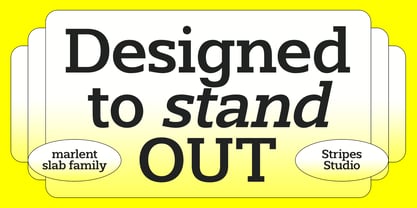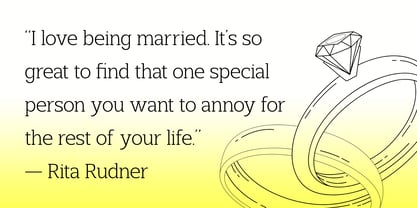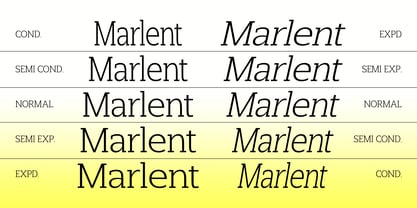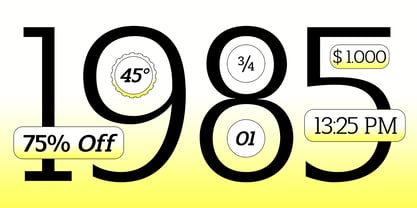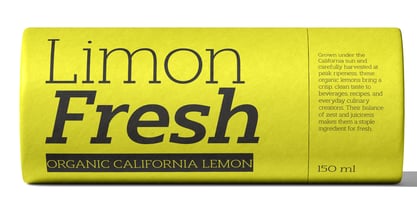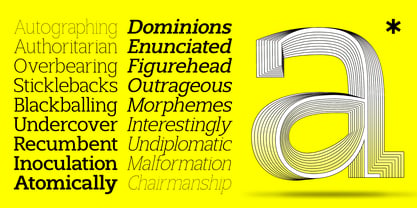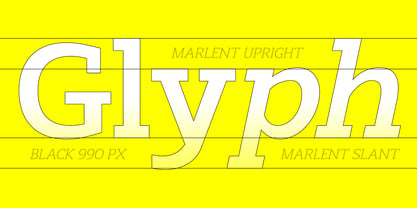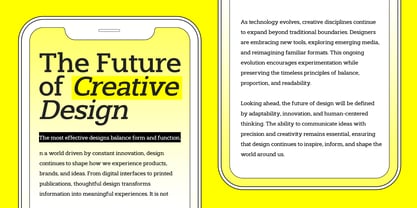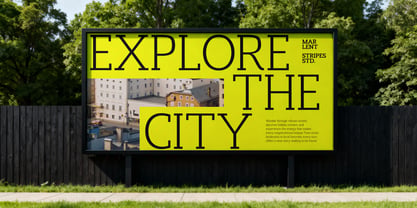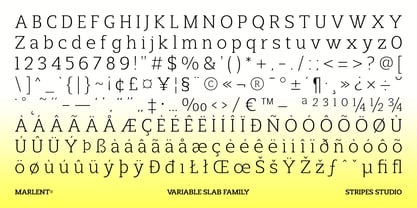
Marlent
by Stripes Studio
The Marlent Font Family was designed by Yur Lis and published by Stripes Studio. Marlent contains 91 styles and family package options.
Marlent is an elegant and modern typeface with a refined, stylish character. It features clean lines, balanced proportions, and sophisticated letterforms that create a premium and luxurious appearance. Ideal for branding, logos, fashion projects, editorial layouts, product packaging, beauty brands, and designs that require a classy, feminine, and contemporary aesthetic.
Designers: Yur Lis
Foundry: Stripes Studio